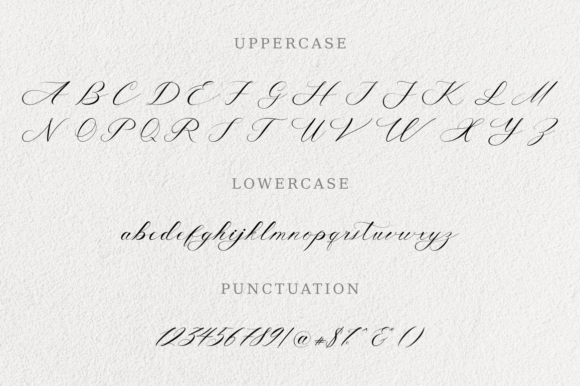
Introduction to My Autery Font
Have you ever been in the middle of a creative project, staring at a blank page or screen, searching for the perfect font to give your design that extra oomph? That’s exactly what happened to me when I stumbled upon My Autery Font. Its dainty and unique script style caught my eye, and I knew I had to learn more about this hidden gem.
As a designer, I’m always on the lookout for high-quality fonts that can elevate my designs and make them stand out. And My Autery Font definitely delivers. With its romantic and lovely look, it’s perfect for adding a touch of whimsy to wedding invitations, love letters, or any other design project that requires a delicate touch.
Key Features of My Autery Font
- High-quality design: My Autery Font is crafted with precision and care, ensuring a professional and polished look for your creative projects.
- Transparent background: This font features a transparent background, making it perfect for use on images, videos, or any other design resource that requires a clean and minimalist aesthetic.
- Large character set: My Autery Font includes a comprehensive character set, covering a wide range of languages and special characters, making it ideal for use in various creative projects.
- Resolution-independent: This font is designed to be resolution-independent, ensuring that it looks crisp and clear at any resolution or size.
- Perfect for digital use: My Autery Font is optimized for digital use, making it an excellent choice for web design, mobile apps, and other digital creative projects.
Honest Review: My Autery Font
As a designer, I’m always on the lookout for high-quality design resources to elevate my creative projects. Recently, I came across My Autery Font and was excited to give it a try.
- ✨ The font has a transparent background, making it easy to use on any design project.
- ✨ The design is clean and modern, perfect for a wide range of creative projects.
- ⚠️ The font is only available in a limited number of weights and styles.
Overall, I was impressed with My Autery Font and would recommend it to designers who are looking for a free, high-quality font for their creative projects. While it may not be perfect, it’s a great addition to any design resource library.